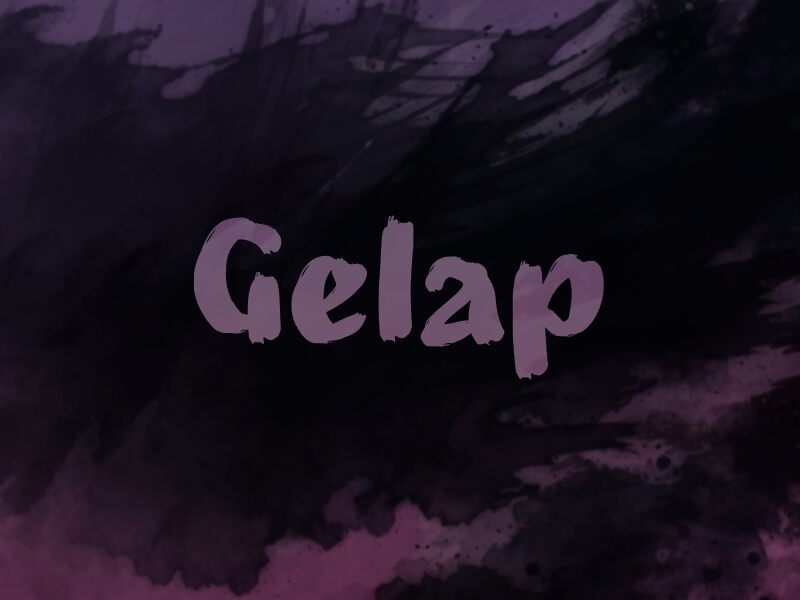
Gelap
Gelap, crafted by the designer wep, brings to the canvas an expressive brush style that conveys a bold and artistic flair. Its assertive strokes and textured edges evoke a sense of raw energy and spontaneity akin to an artist's swift brushwork on a textured canvas. This font stands out for its impactful presence, making it an ideal choice for projects that require a touch of drama and personal touch.
Its dynamic form lends itself beautifully to creative endeavors such as book covers, edgy advertising campaigns, music album art, or any medium that benefits from a handcrafted aesthetic. Gelap's robust character ensures it captures attention in large displays while retaining its legible charm in smaller sizes, making it versatile across various design applications.